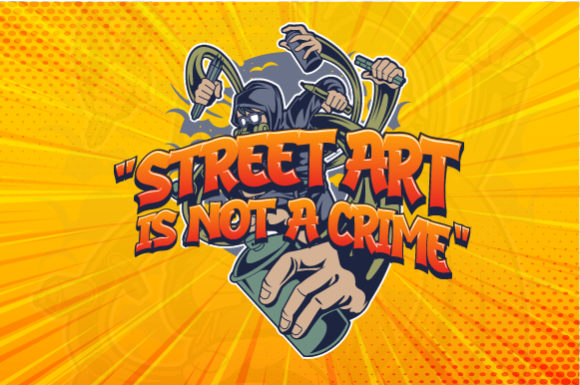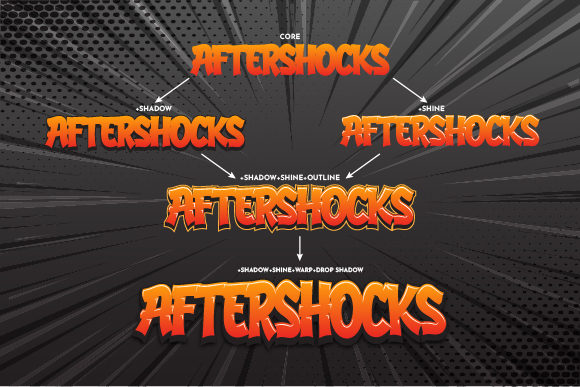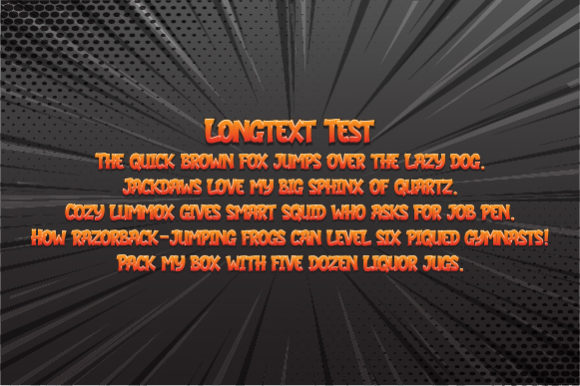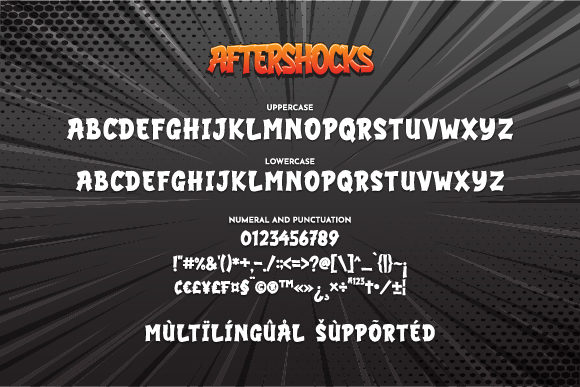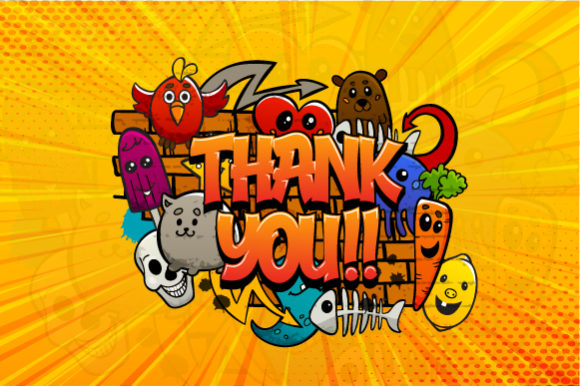
Aftershocks Font: Elevate Your Designs with a Bold and Stylish Display Font
In the world of design, fonts play a crucial role in conveying messages, evoking emotions, and creating visual impact. For designers and crafters looking to add a touch of boldness and style to their projects, Aftershocks Font is an excellent choice. This masterfully designed font is a true must-have for anyone seeking to make their designs stand out from the crowd.
What is Aftershocks Font?
Aftershocks Font is a bold and stylish display font that is perfect for a wide range of design applications, including branding, advertising, packaging, and more. Its unique design elements and robust structure make it an ideal choice for headlines, titles, and short texts. Whether you’re working on a digital project or a print design, Aftershocks Font is sure to make a lasting impression.
Key Features of Aftershocks Font
- Bold and Stylish: Aftershocks Font boasts a bold and stylish design that is sure to grab attention.
- Highly Versatile: This font is suitable for a wide range of design applications, from digital projects to print designs.
- Easily Readable: Despite its bold design, Aftershocks Font is easily readable, making it perfect for headlines, titles, and short texts.
- Unique Design Elements: The font features unique design elements that set it apart from other display fonts.
Benefits of Using Aftershocks Font
Using Aftershocks Font in your designs can bring numerous benefits, including:
- Instant Visual Impact: The bold and stylish design of Aftershocks Font creates an instant visual impact, drawing the viewer’s attention to your message.
- Enhanced Brand Identity: Aftershocks Font can help elevate your brand identity by adding a touch of boldness and style to your designs.
- Improved Readability: The font’s easily readable design ensures that your message is conveyed clearly and effectively.
- Endless Creative Possibilities: Aftershocks Font can be used in a wide range of design applications, offering endless creative possibilities.
How to Use Aftershocks Font
Using Aftershocks Font in your designs is easy. Here are a few tips to get you started:
- Headlines and Titles: Use Aftershocks Font for headlines and titles to create a bold and stylish impact.
- Short Texts: Use the font for short texts, such as taglines, slogans, and captions.
- Branding and Advertising: Use Aftershocks Font in branding and advertising materials, such as logos, billboards, and magazine ads.
- Experiment with Colors and Effects: Experiment with different colors and effects to make your designs truly stand out.
In conclusion, Aftershocks Font is a bold and stylish display font that is perfect for designers and crafters looking to elevate their designs. Its unique design elements, highly versatile nature, and easily readable design make it an excellent choice for a wide range of design applications. Whether you’re working on a digital project or a print design, Aftershocks Font is sure to make a lasting impression.